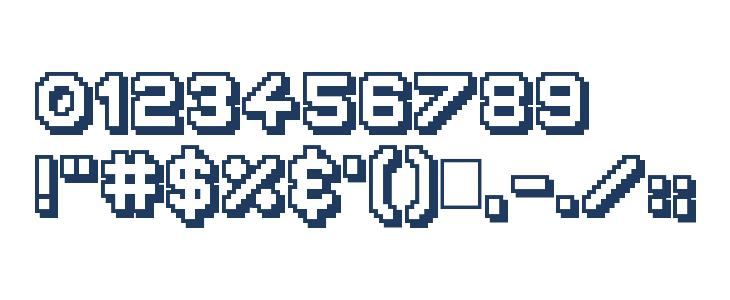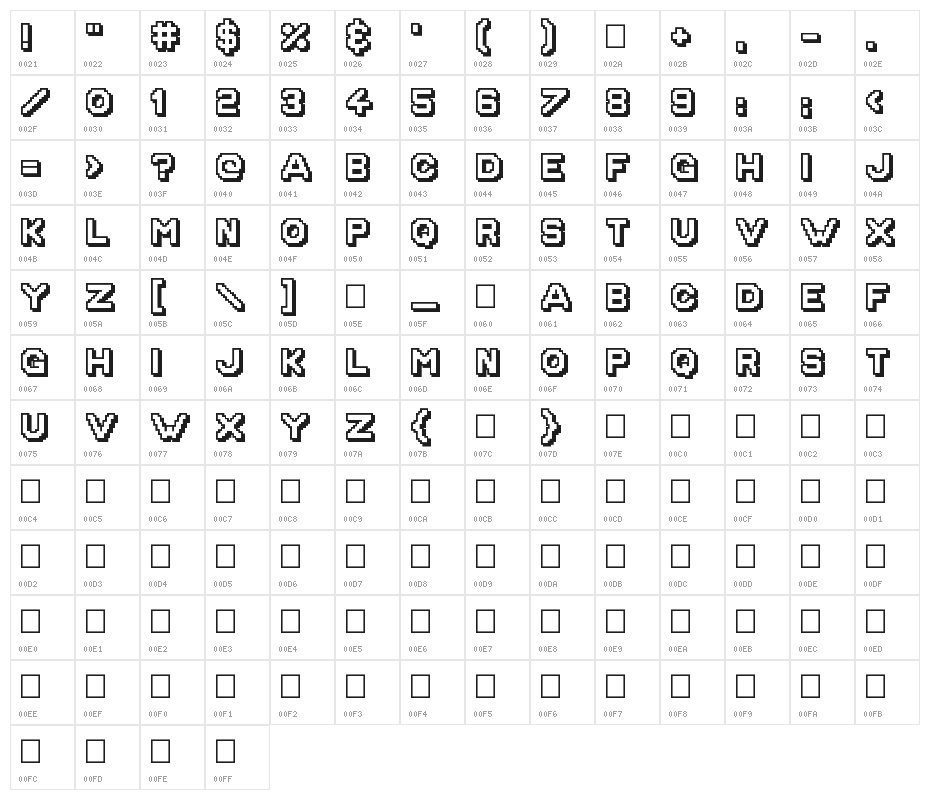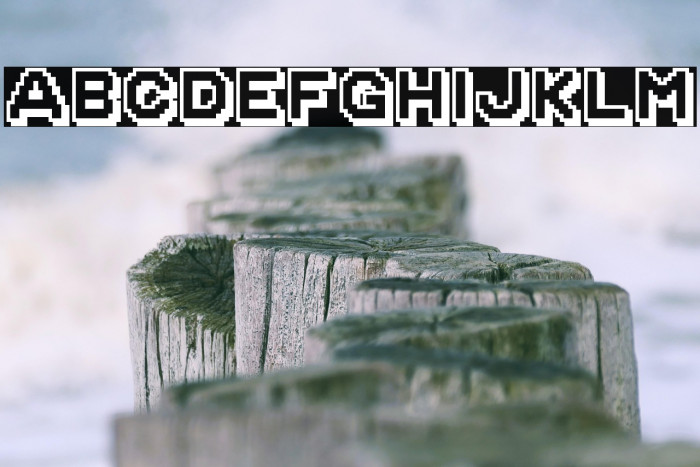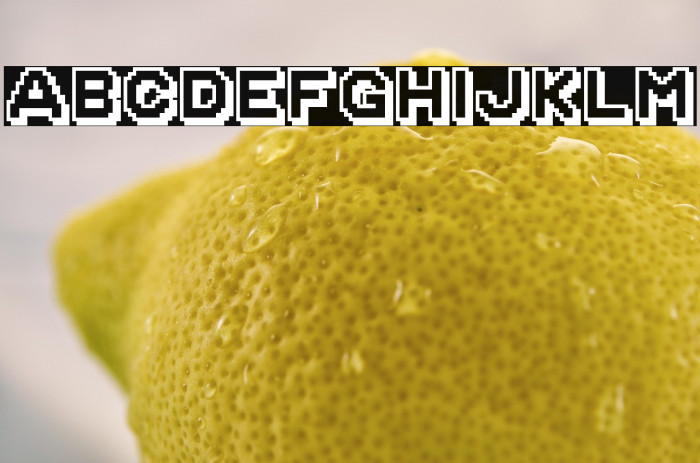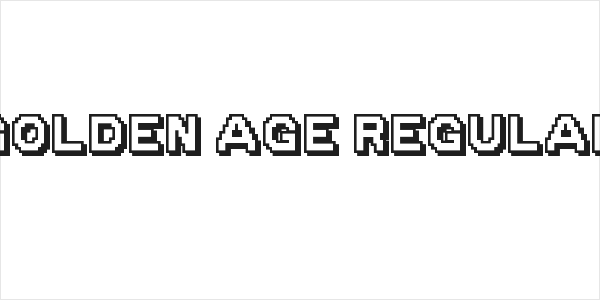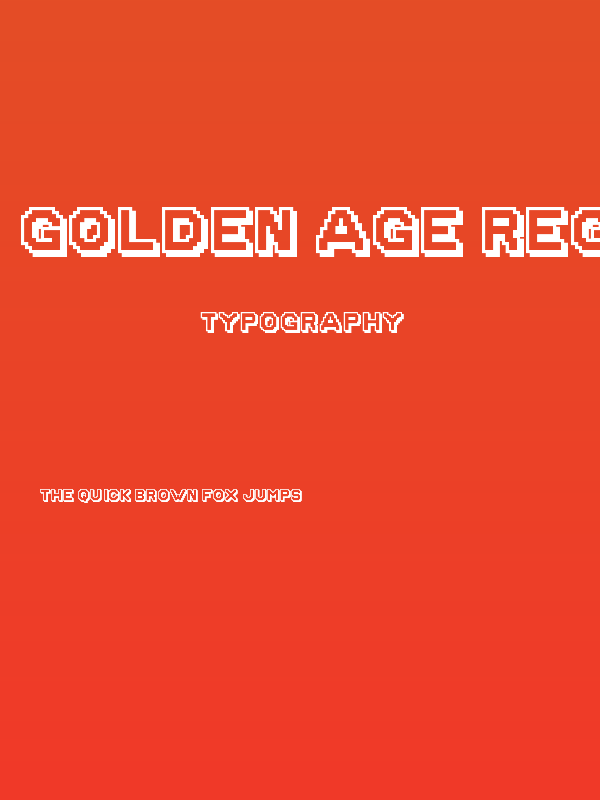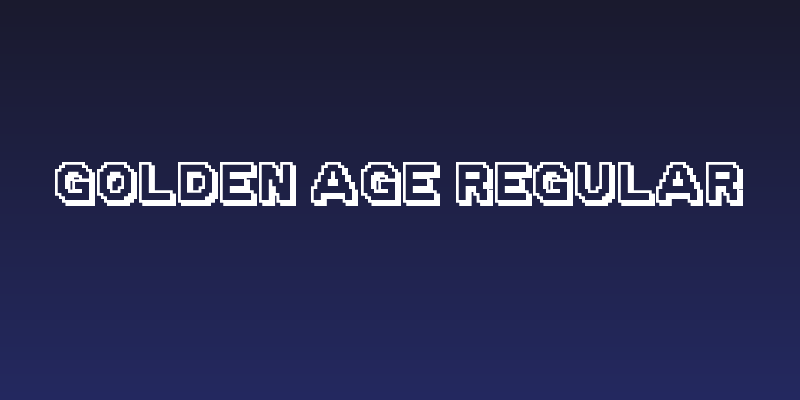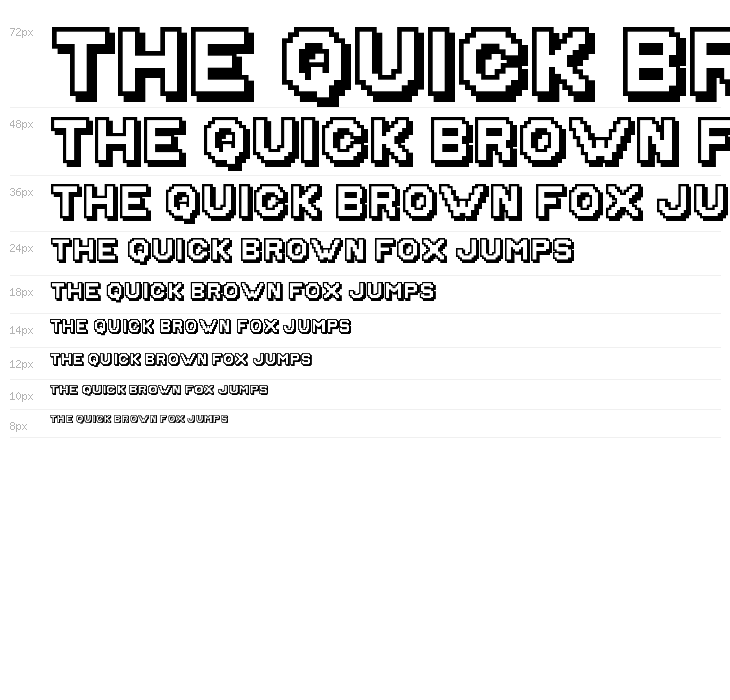
Golden Age Regular Font
Golden Age Regular Description
This font features a bold, pixelated style reminiscent of classic video game graphics from the 8-bit and 16-bit eras. Each character is constructed with a blocky, geometric design, giving it a retro, digital appearance. The font is highly legible, with clear distinctions between each letter and number, making it suitable for both display and digital interfaces. The uniformity in stroke width and the absence of curves contribute to its distinct, nostalgic aesthetic. The characters are evenly spaced, providing a balanced and cohesive look across text. This font is ideal for projects that aim to evoke a sense of nostalgia or pay homage to early digital design.
| Use Case | Headlines, Logos, Digital Interfaces |
| Proposed Projects | Perfect for retro-themed video games, digital art projects, nostalgic branding, and tech-related designs. |